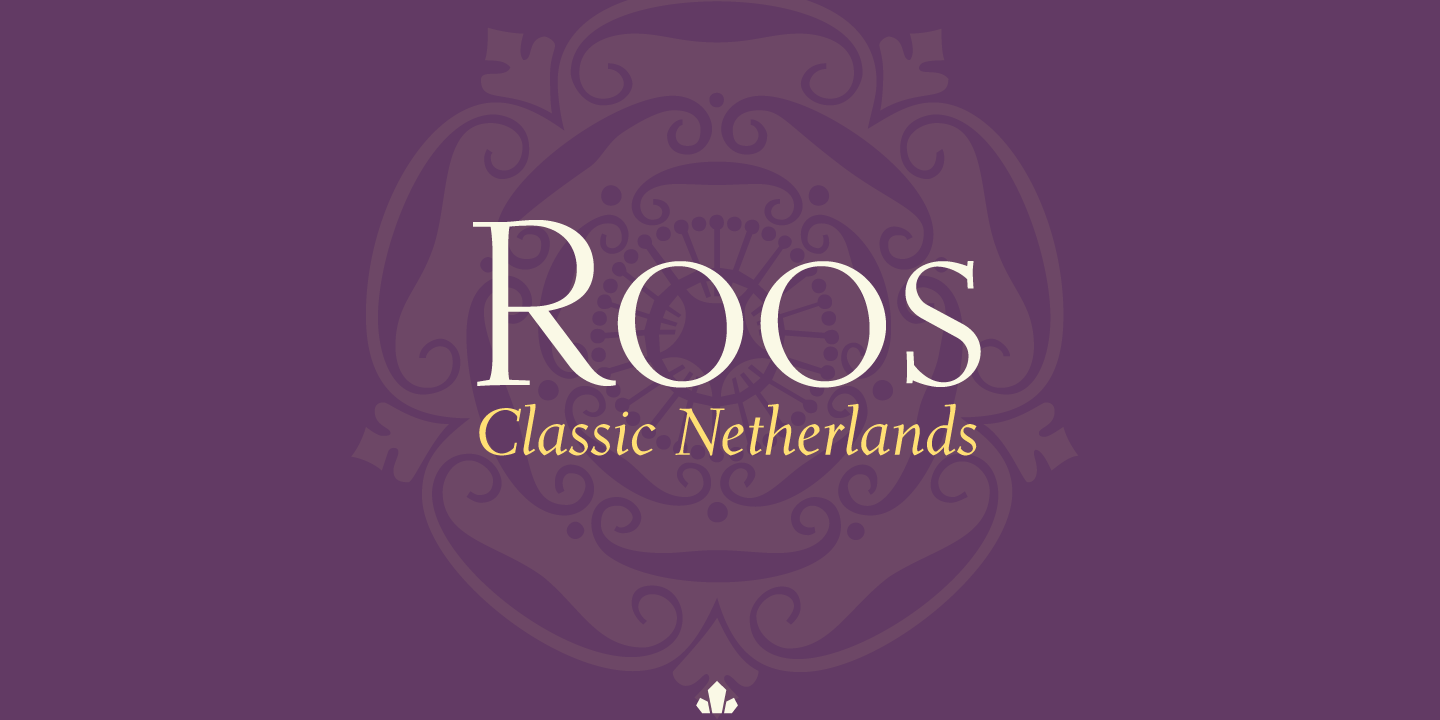
Roos Font is perfect for flower shop branding, garden center signage, botanical illustration labels, romantic wedding invitations, spring festival posters, nature photography watermarks, organic beauty product packaging, floral design studios, greenhouse nursery materials, and any project requiring delicate beauty with botanical elegance and natural feminine grace.
What makes Roos Font exciting is its blooming elegance and natural beauty that captures the essence of fresh roses and garden sophistication. The typeface features graceful, petal-inspired letterforms with organic curves and delicate flourishes that evoke the gentle beauty of blooming flowers and springtime renewal. Its enchanting character design speaks to audiences who appreciate natural beauty, romantic aesthetics, and the timeless appeal of floral arrangements, making it the perfect choice for brands that want to communicate freshness, elegance, and the nurturing spirit of botanical care and garden cultivation.
Roos Font family includes light, regular, and medium weights with complete character sets featuring uppercase and lowercase letters, garden-inspired numerals, essential punctuation marks, and floral decorative elements. The typeface incorporates subtle petal-like curves and botanical details that enhance its natural appearance while maintaining excellent readability across all horticultural applications and romantic design projects.
Whether you're creating floral business identity, designing botanical educational materials, or developing spring marketing campaigns, Roos Font Free Download provides the perfect typographic foundation that celebrates the beauty of nature and romantic elegance. The font's blooming appeal and botanical character make it particularly effective for florists, garden centers, and nature-inspired brands. Its floral aesthetics translate beautifully across seed packets, wedding stationery, and digital platforms, ensuring your brand communicates the kind of natural beauty and romantic charm that resonates with garden enthusiasts and lovers of botanical sophistication.